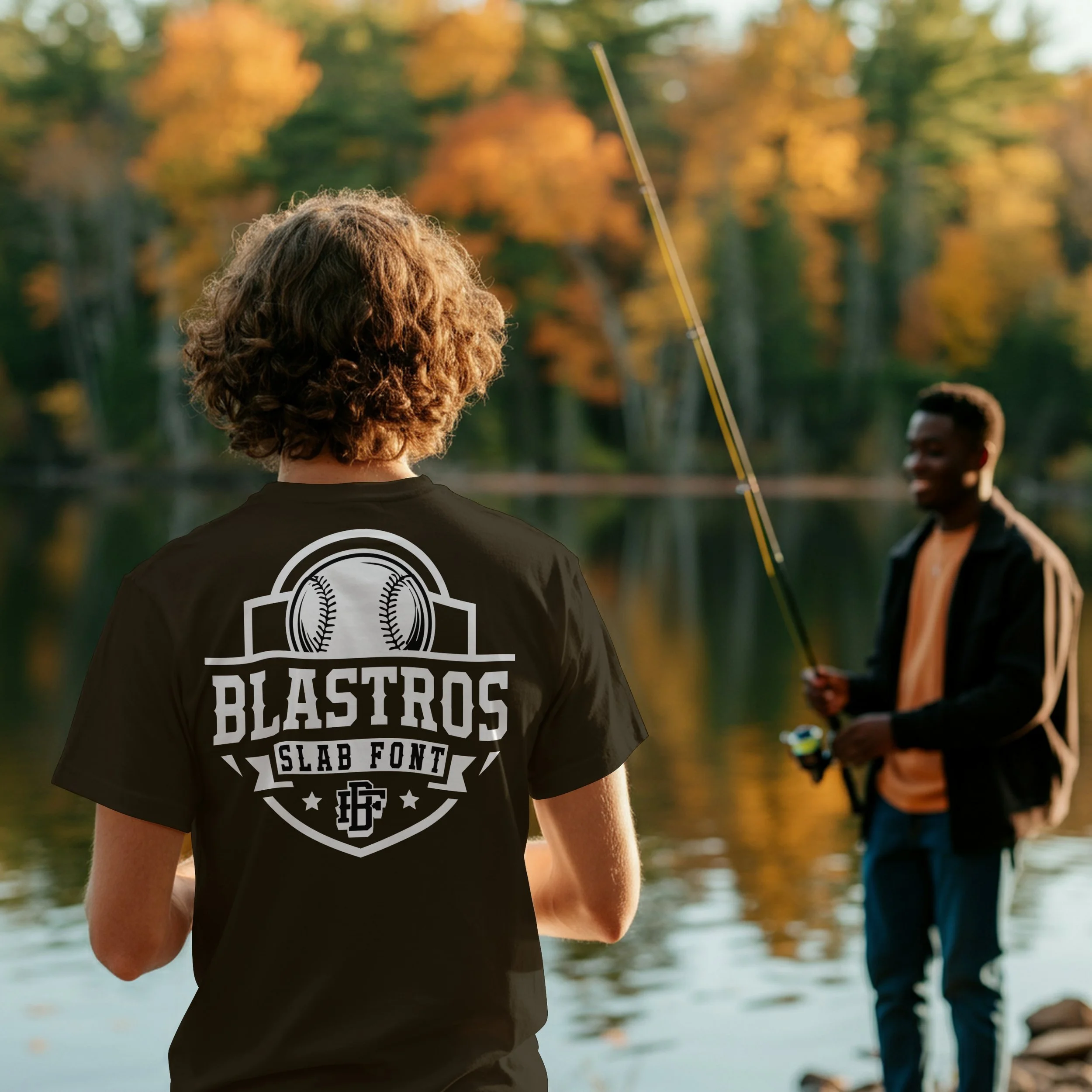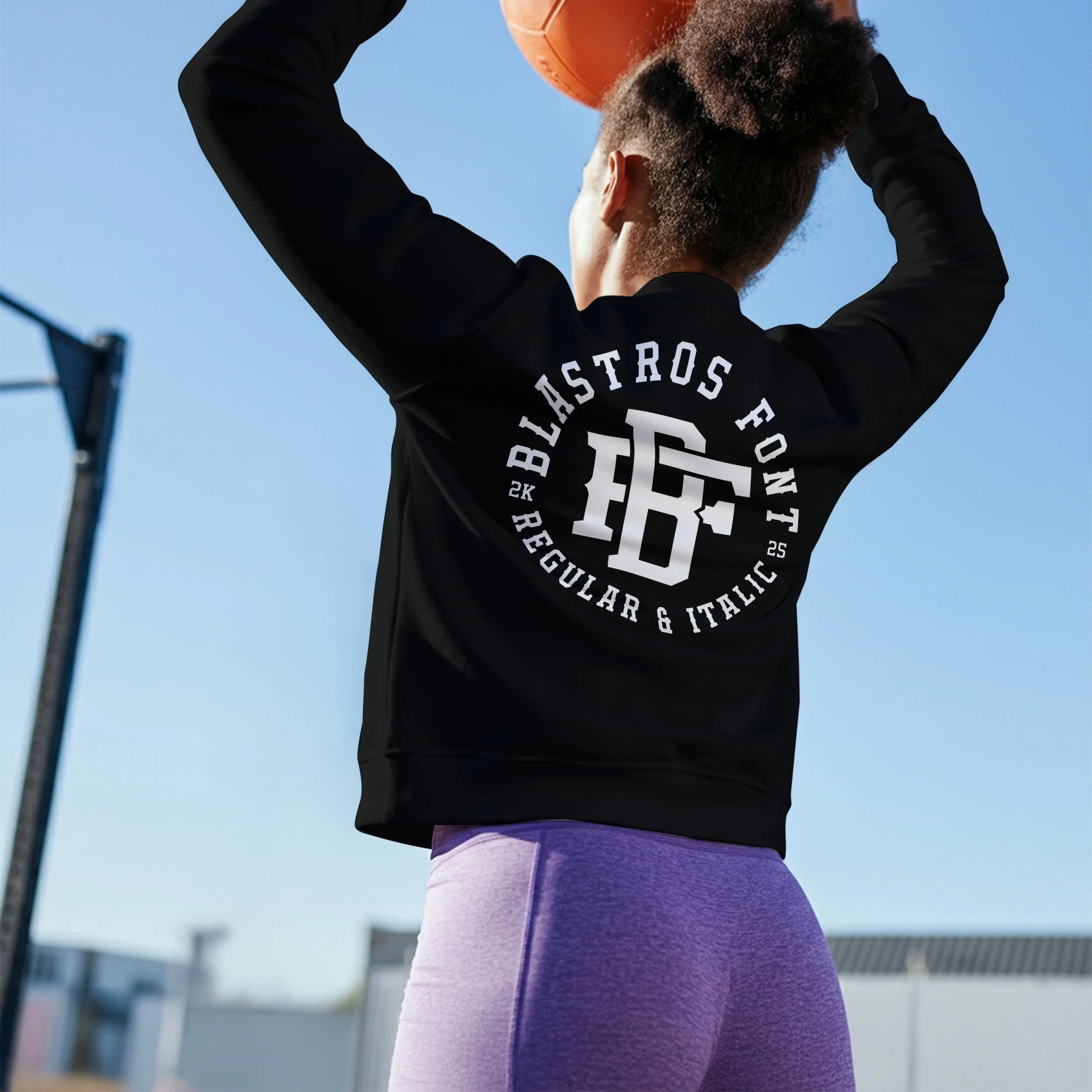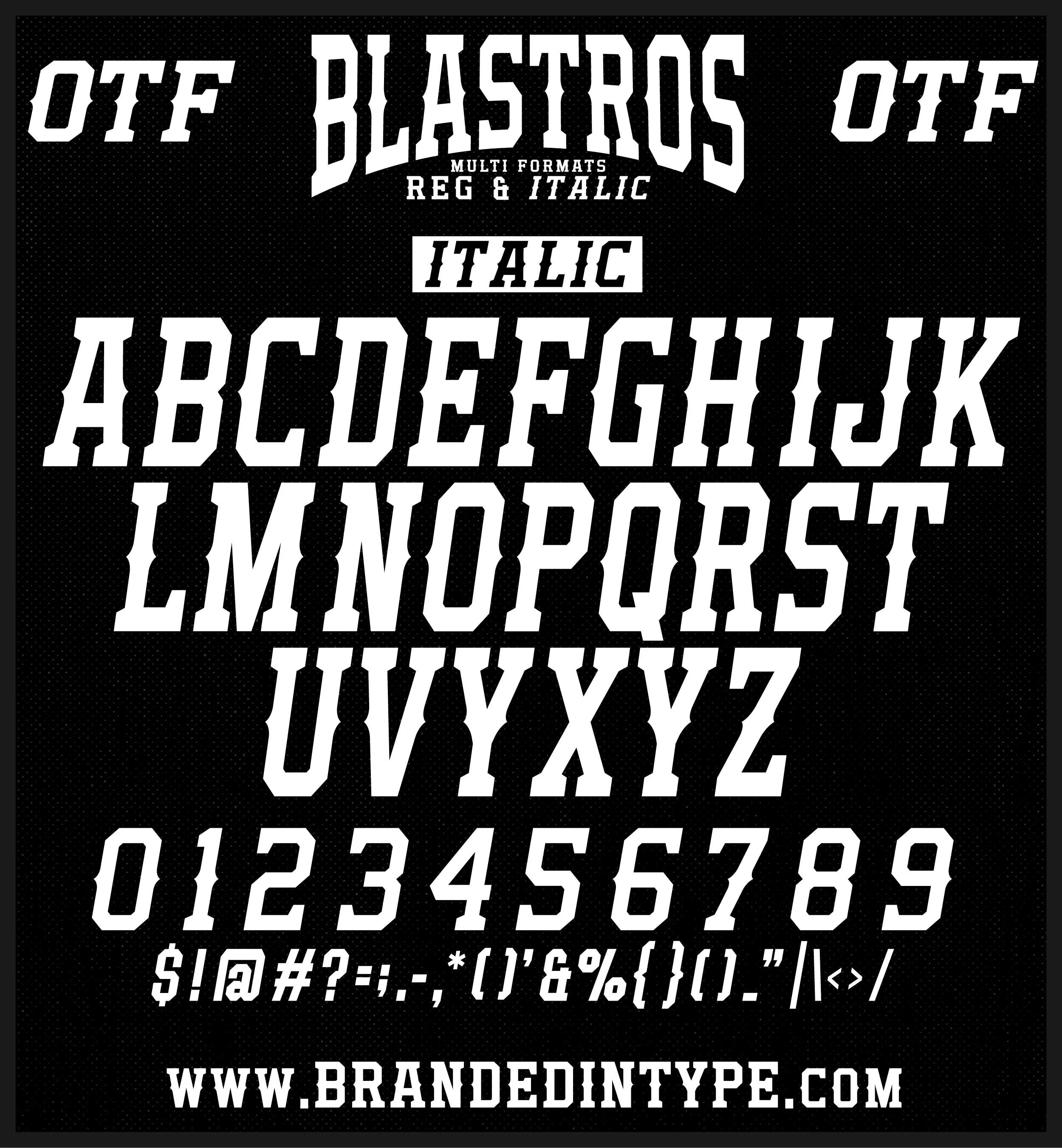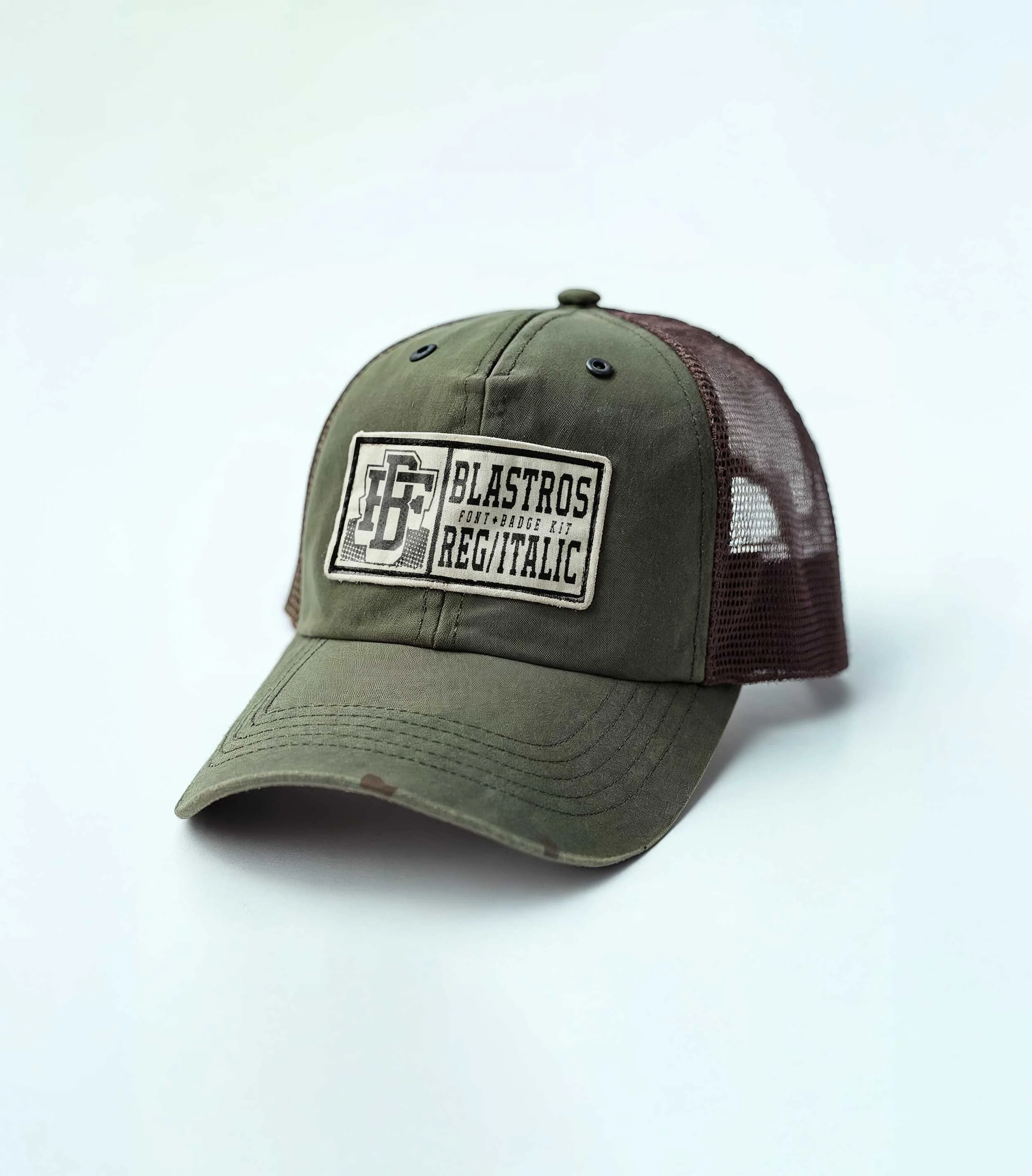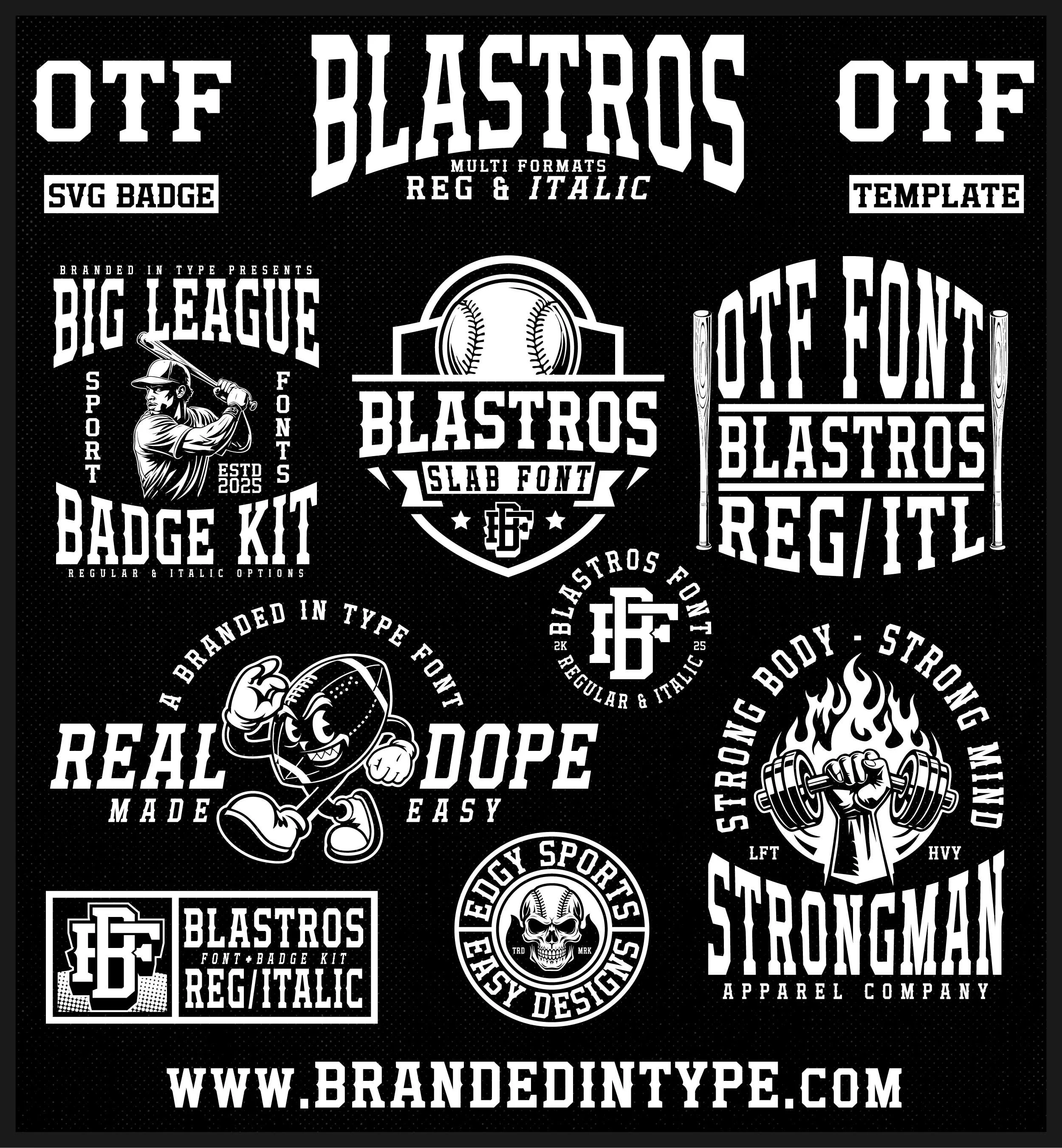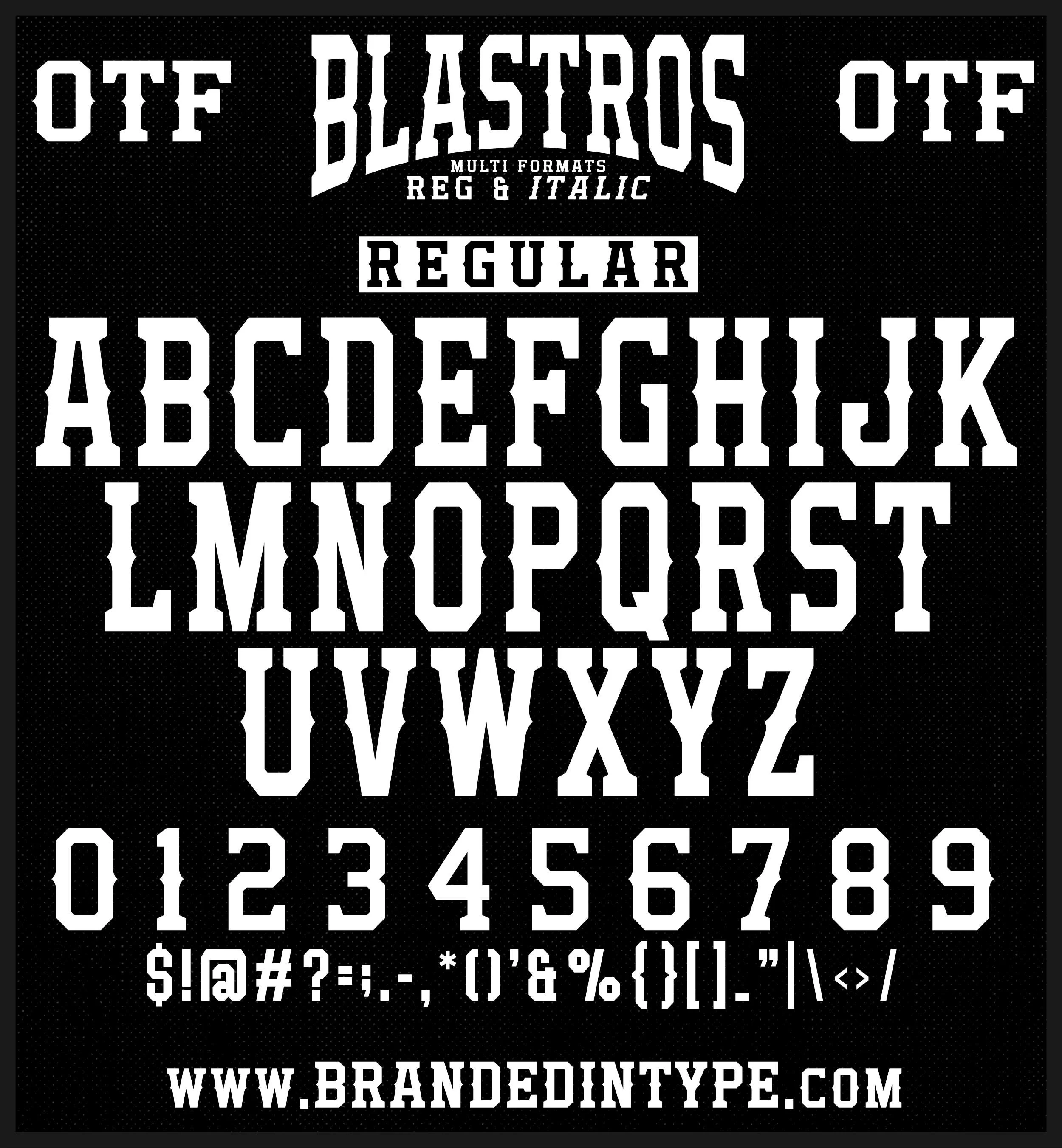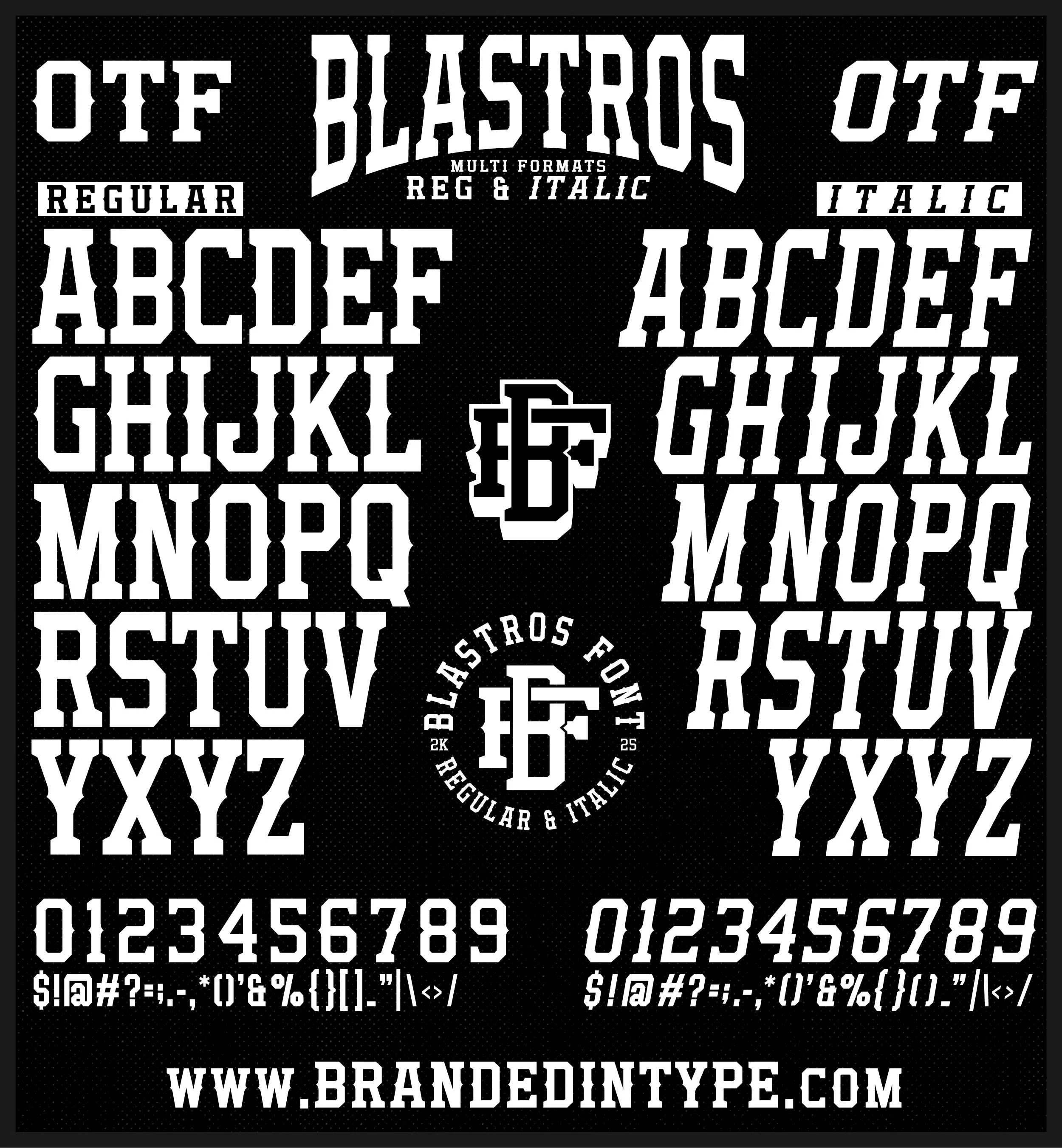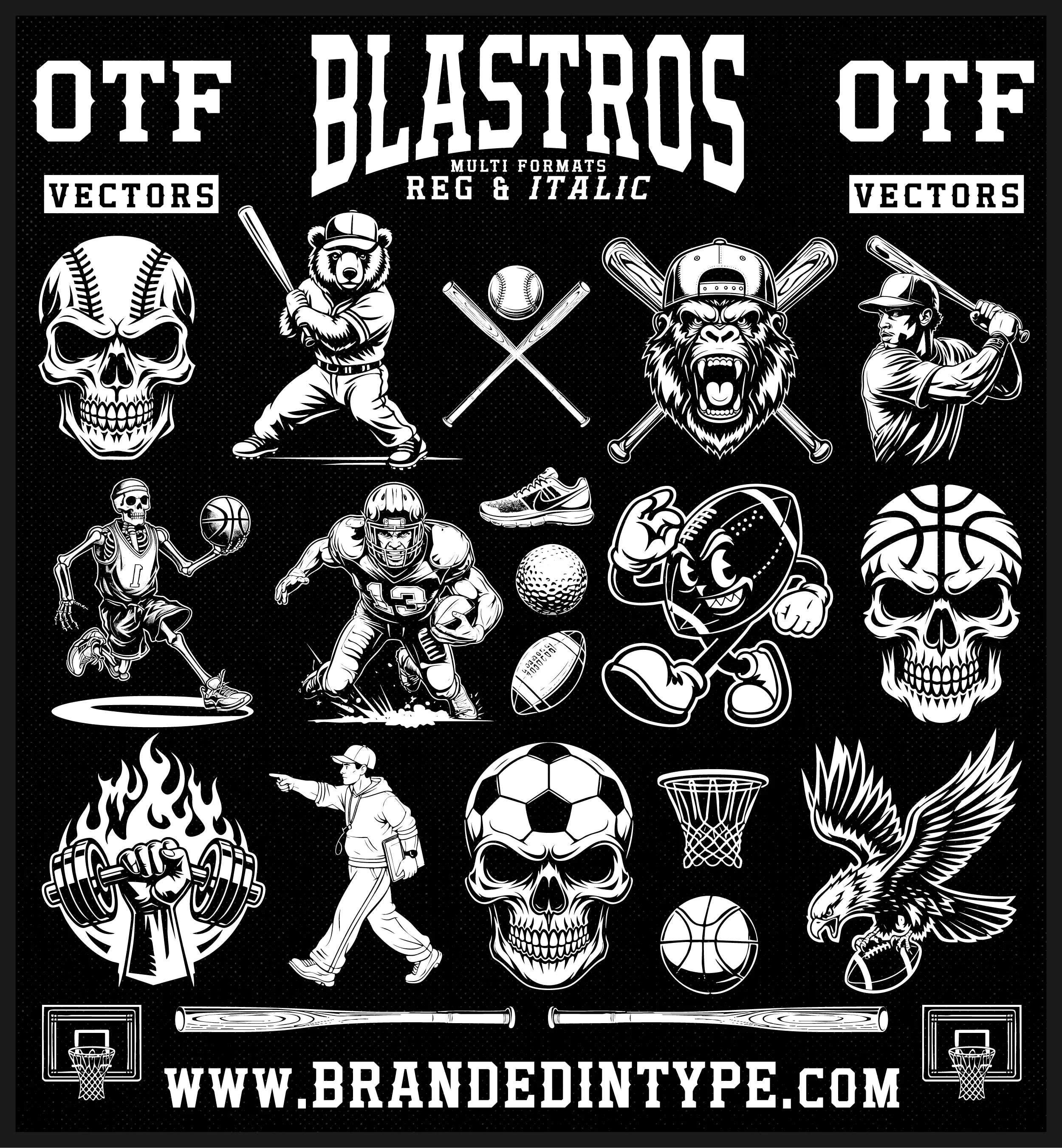
BLASTROS FONT
The BLASTROS Font is another one of our fonts that fit perfectly any designers font catalogue. The font set includes multiple formats in all letters, numbers, symbols, uppercase, lowercase, italic, providing a bold, slab style western or edgy looking appearance. Perfect for T-Shirt designs, badge designs, easy monograms and whatever else you can dream up.